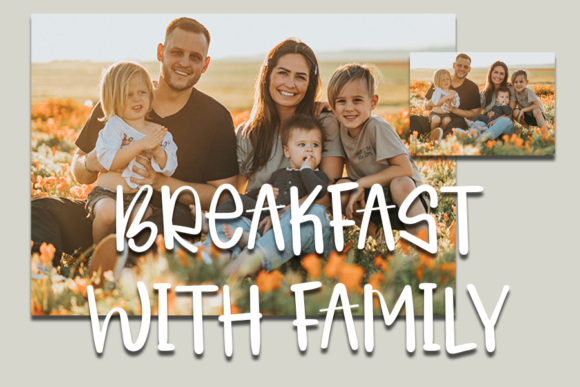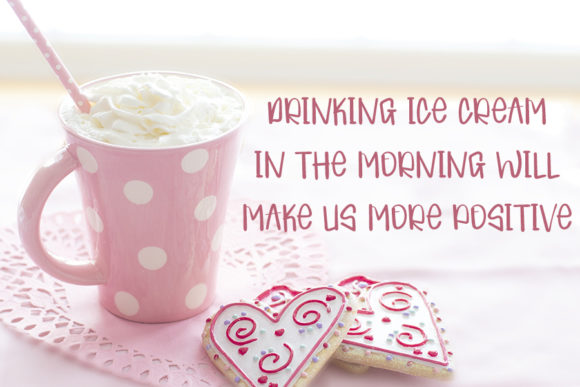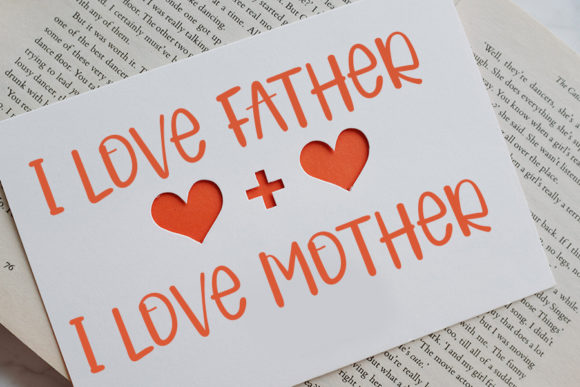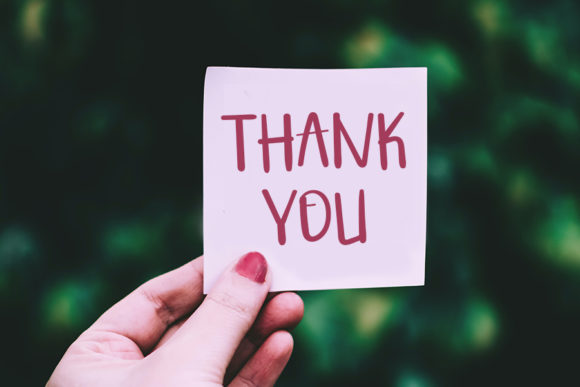
Sunday Morning Font
About Sunday Morning Font
Sunday Morning is a quirky, readable and versatile handwritten font. Suitable to a wide variety of designs due to its neat and simple style, Sunday Morning has the potential to become your favorite go-to font, no matter the occasion!